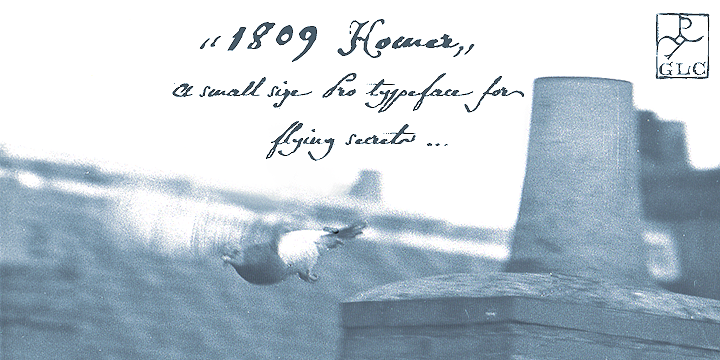
The 1809 Homer Font is perfect for classical literature publications, epic poetry books, ancient history materials, museum exhibition texts, scholarly manuscripts, philosophical treatises, university course materials, historical documentaries, mythological storytelling, and timeless academic publications.
What makes the 1809 Homer Font exciting is its extraordinary ability to channel the epic grandeur and timeless wisdom of classical antiquity through majestic letterforms that embody the immortal spirit of Homer's legendary works. This distinguished typeface features classical proportions, heroic character construction, and ancient-inspired design elements that instantly evoke the sweeping narratives of the Iliad and Odyssey. Each letter carries the weight of centuries, representing the enduring power of storytelling and the eternal quest for knowledge and adventure that defines human civilization.
The 1809 Homer Font family includes regular, italic, bold, and ornamental versions, along with classical Greek symbols, ancient ornaments, and scholarly decorative elements that enhance its epic appeal across various academic and literary design applications.
Whether you're publishing classical texts or creating educational materials about ancient civilizations, 1809 Homer Font Free Download delivers unmatched scholarly authority and timeless literary elegance. Its masterfully crafted classical letterforms ensure exceptional readability while maintaining that essential epic character that speaks to students and scholars of classical literature. The font's scholarly features include contextual alternates, ancient ligatures, and classical variations that automatically enhance academic typography standards. Literature professors and classical studies institutions consistently choose this font for projects requiring genuine academic credibility and epic literary gravitas. The 1809 Homer Font transforms ordinary text into immortal expressions of classical wisdom, making it an essential cornerstone of any designer's scholarly typography library.